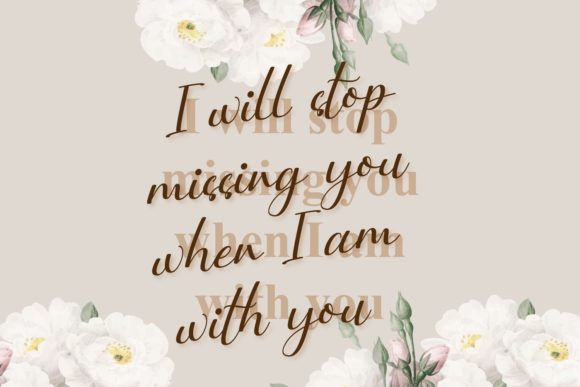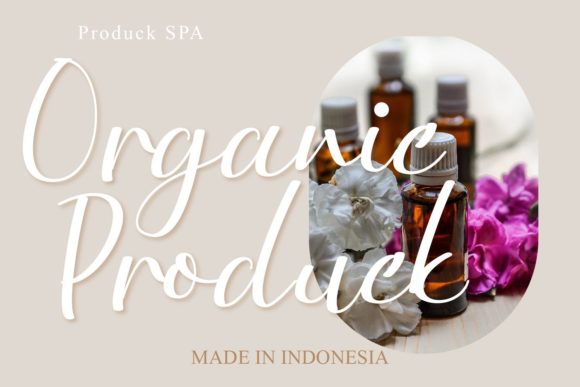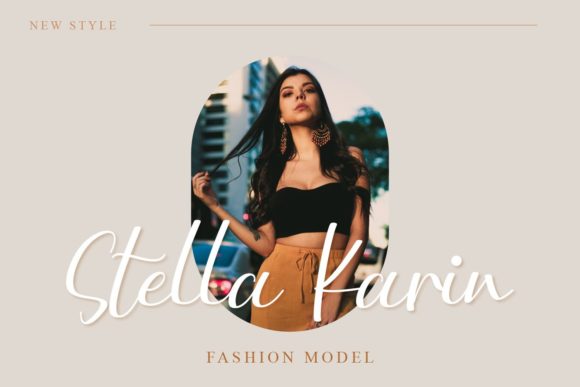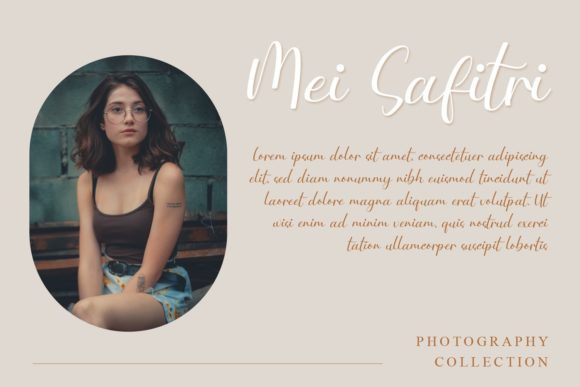
Introduction to Baby Freya Font
Baby Freya is an elegant handwritten font, featuring a lovely flow.
It looks beautiful on a variety of designs requiring a personalized style, such as wedding invitations, thank you cards, weddings, greeting cards, logos and so on .
Key Features of Baby Freya Font